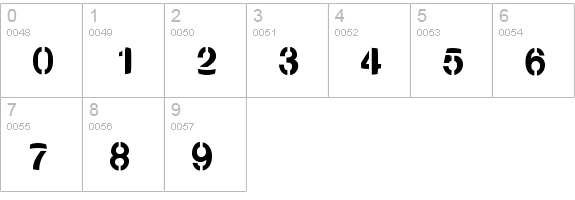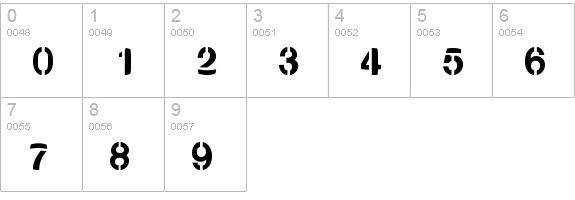
Stencilia-Bold Font Details
Stencilia-Bold is a strong, high-contrast variant in the Stencilia typeface family \xE2\x80\x94 well suited to headlines, attention-grabbing titles, and strong calls-to-action.
Stencilia-Bold is a striking and versatile font that exudes modernity and sophistication. With its bold and clean lines, this typeface is perfect for making a bold statement in any design project. The strong presence of Stencilia-Bold commands attention and adds a touch of elegance to any text. Whether used for headlines, logos, or branding materials, Stencilia-Bold is sure to leave a lasting impression. Best of all, Stencilia-Bold is available for free download at FontsMarket.com. This means that you can easily access this high-quality font without any cost, making it a valuable addition to your font collection. Don't miss out on the opportunity to enhance your designs with the timeless appeal of Stencilia-Bold. Download it today and elevate your projects with this exceptional typeface.